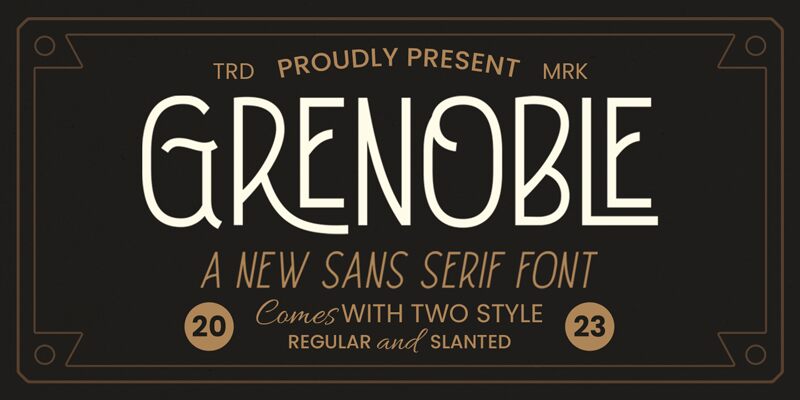
Grenoble font by Letterhend Studio is a light and condensed display font with a retro style. Its decorative elements add modern touches and visual interest while its elegant and refined design reflects sophistication with each line. The architectural beauty of the letters, combined with their simplicity, provides users with both beautifully crafted icons and texts that grab attention.
The free display typeface can be used for headlines displayed on book covers or sport magazines or for architectural magazines and articles. Its design can also decorate movie posters, games set in older eras, billboard advertisements, packaging designs, branding presentations including logos typed in different sizes.